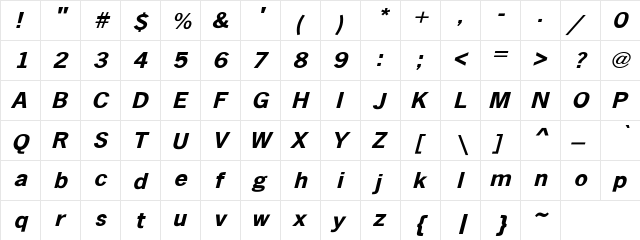
Abell Italic Regular
Design Context for Abell Italic Typeface
Abell Italic offers clean, dependable letterforms without strong stylistic allegiance, making it a practical choice for designers who need flexibility. The dynamic lean of this cut emphasises speed and emphasis in any layout.
Pro Tip: Use Abell Italic for emphasis, pull quotes, and subheadings where its slanted energy can add rhythm to the layout.